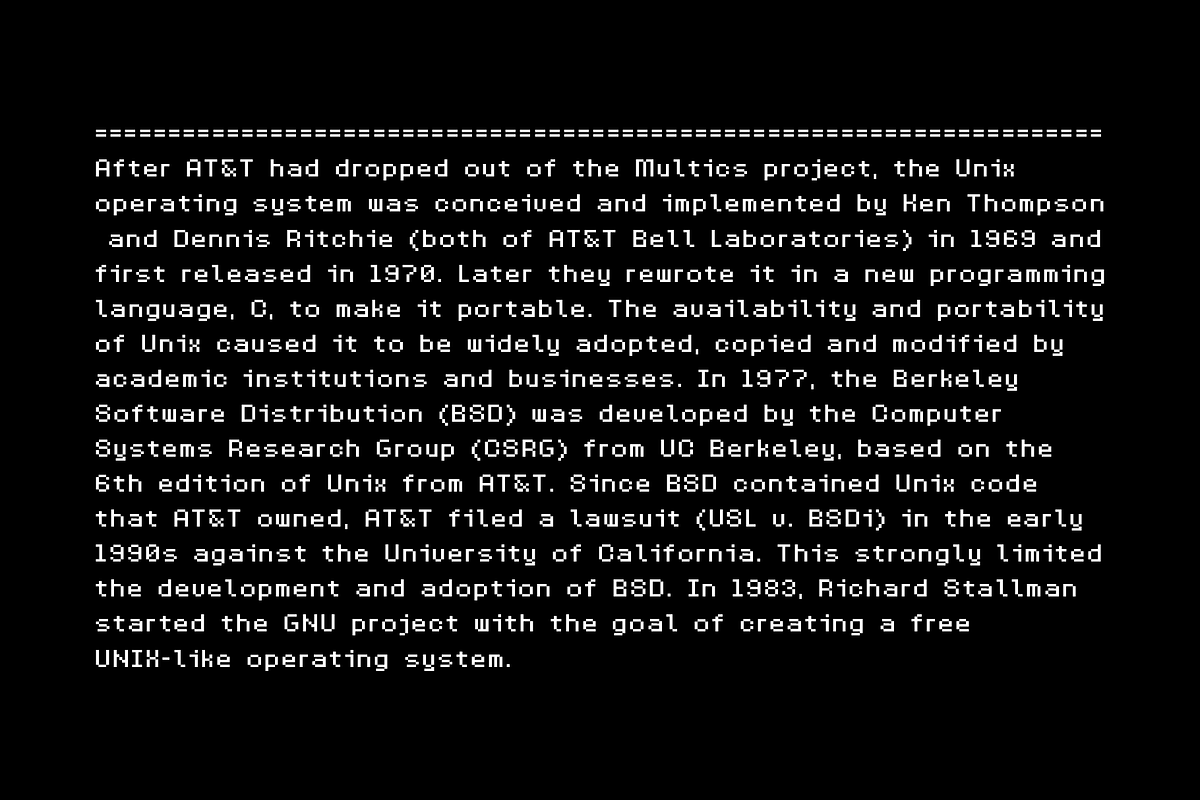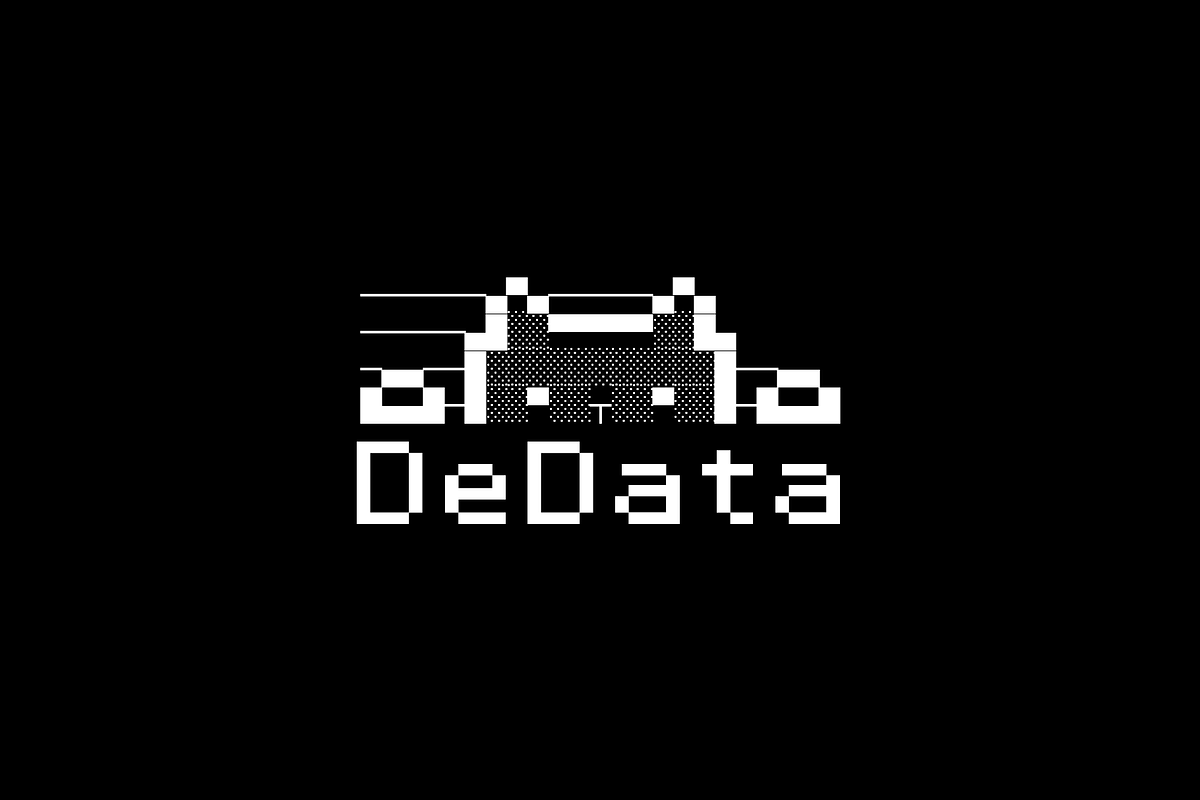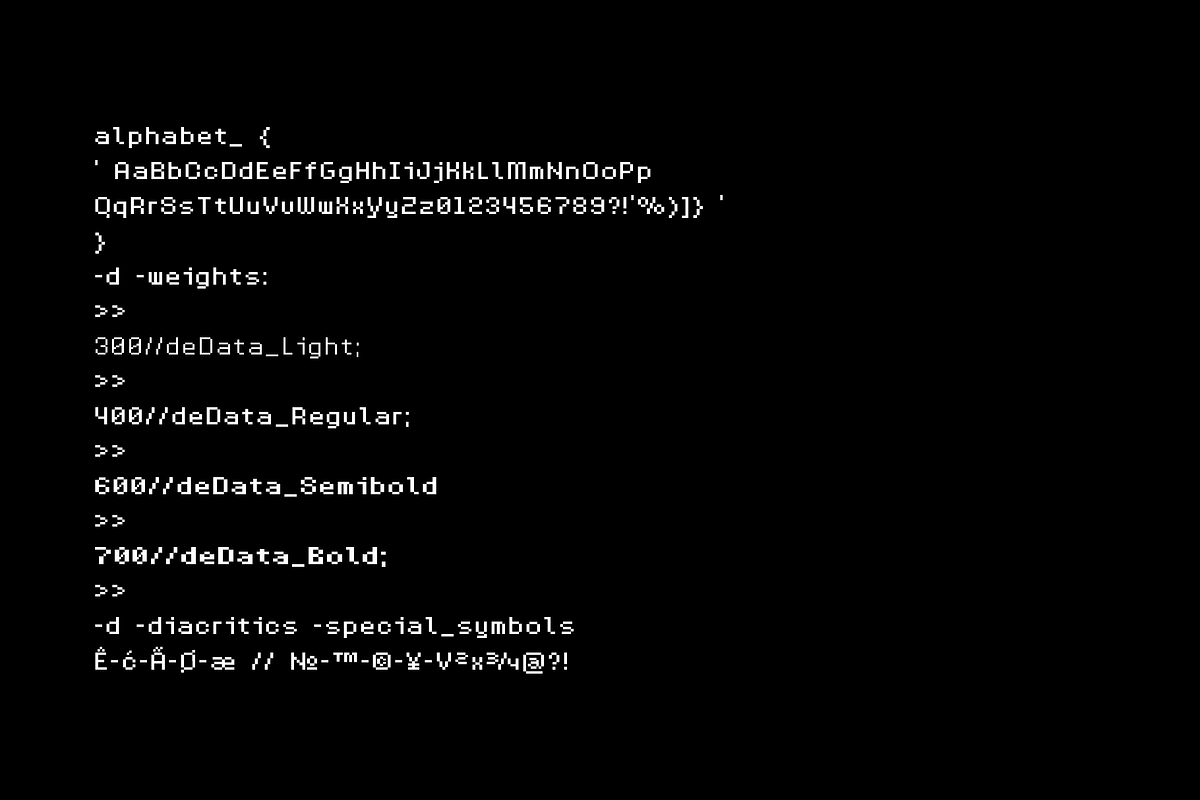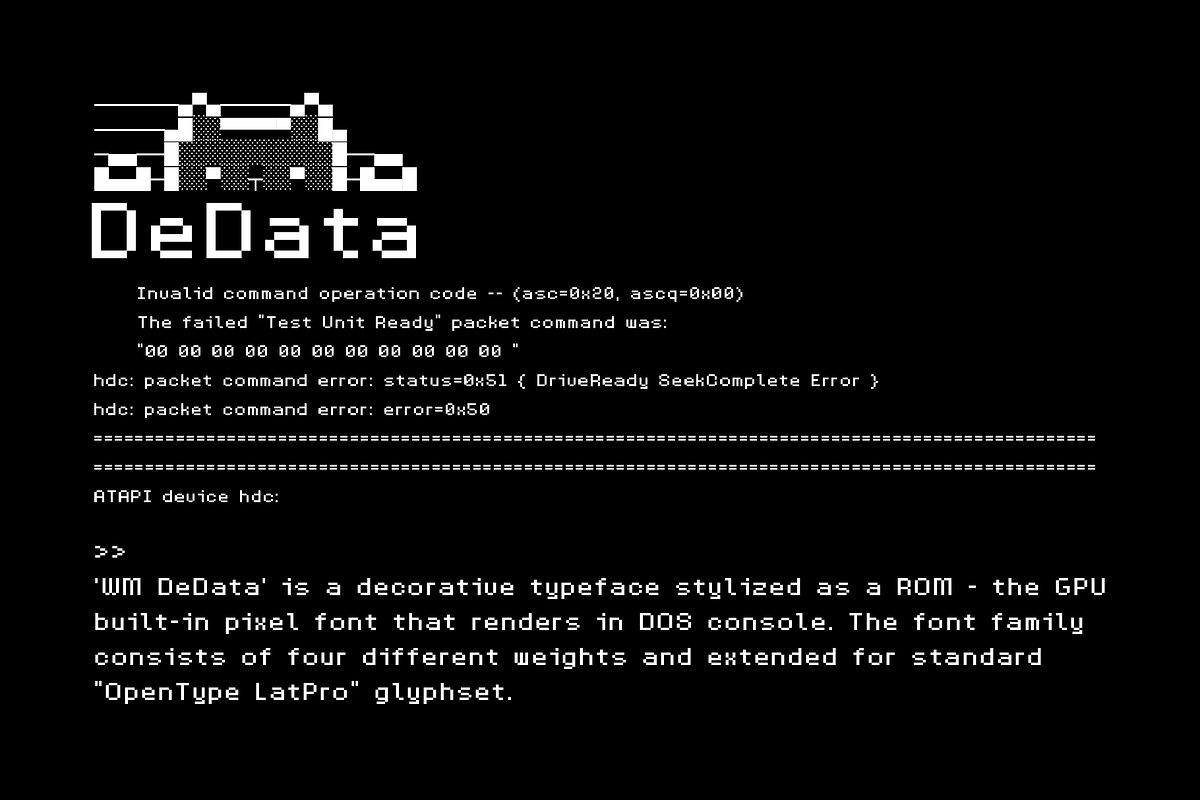
"DeData" Pixel Display Font
"DEDATA" is a decorative typeface stylized as a ROM - the GPU built-in pixel font that renders in DOS console. It is perfect for projects that aim to evoke a sense of vintage gaming nostalgia, including game interfaces, website headers, and digital artwork. With its crisp edges and distinctive style, this font allows you to embrace the pixelated world and add a touch of retro flair to your designs.